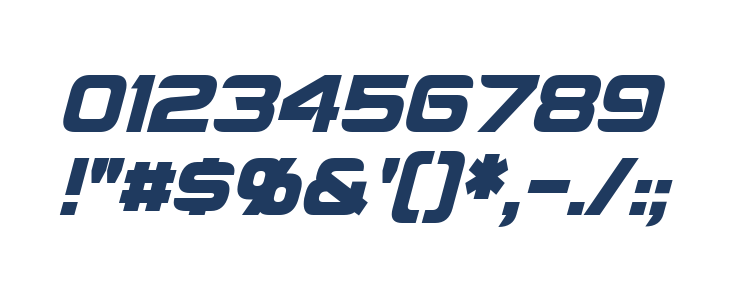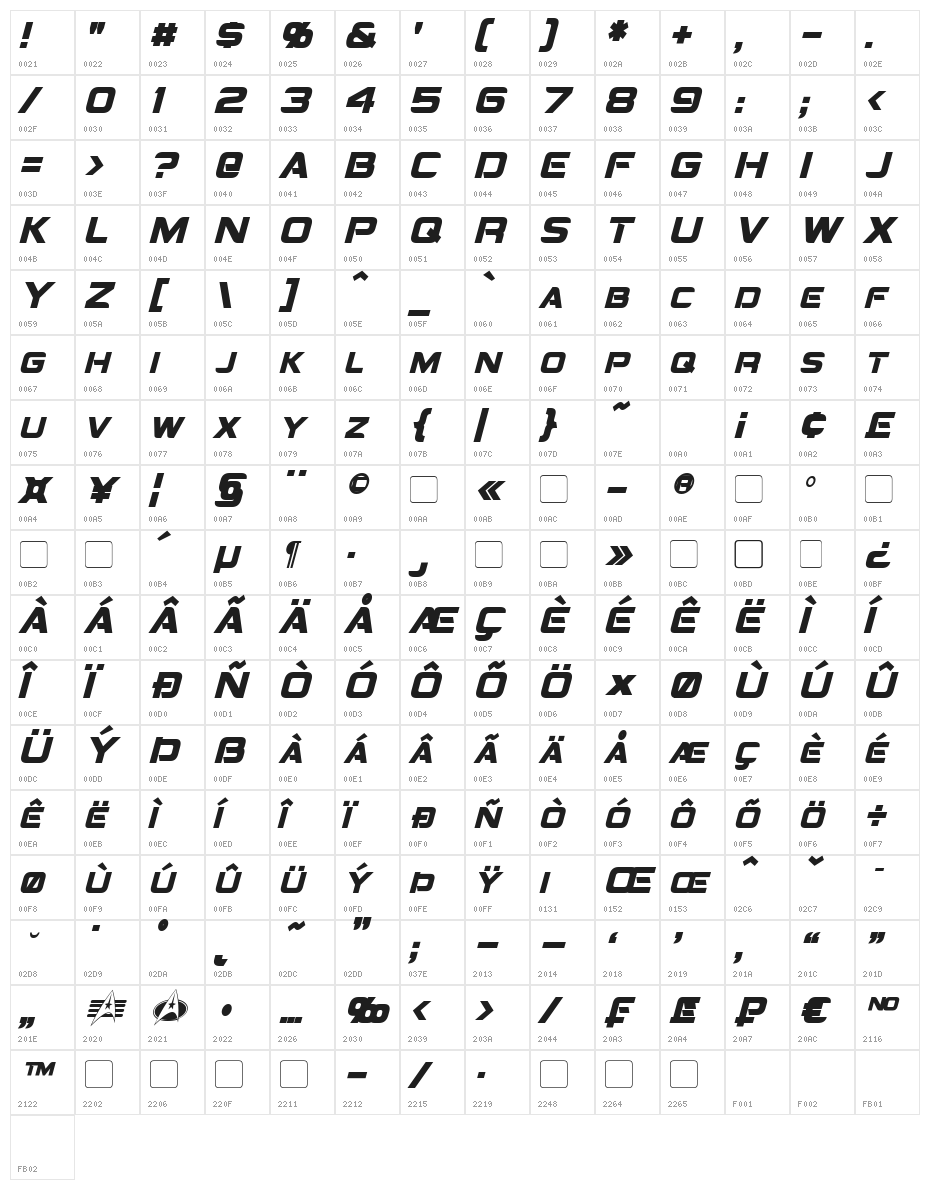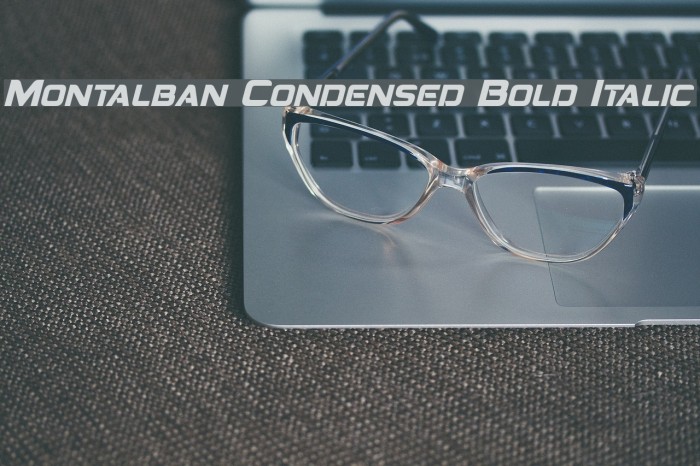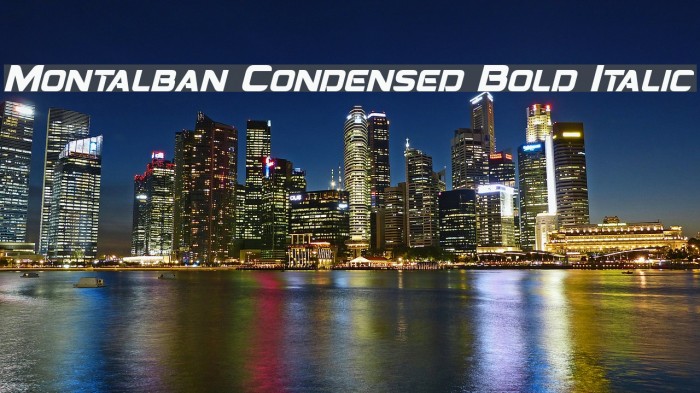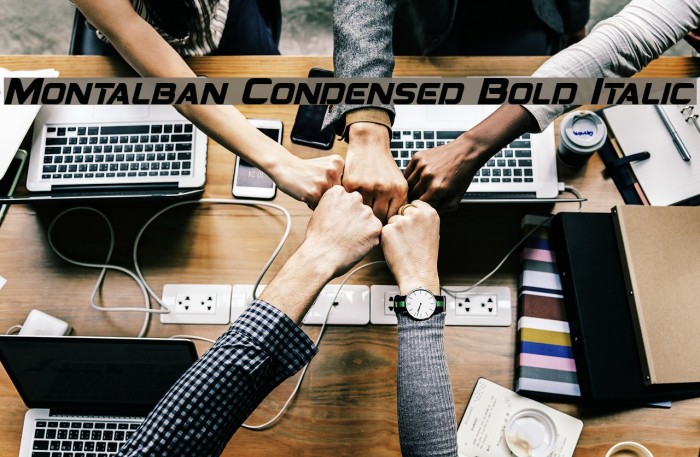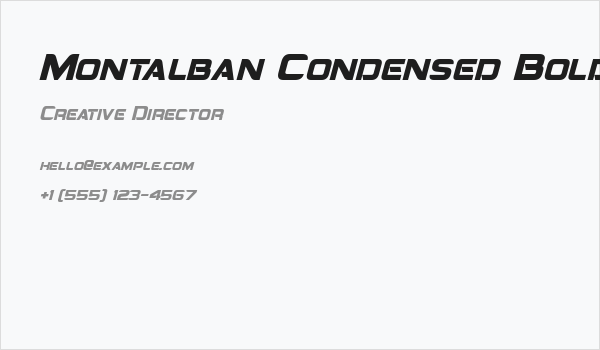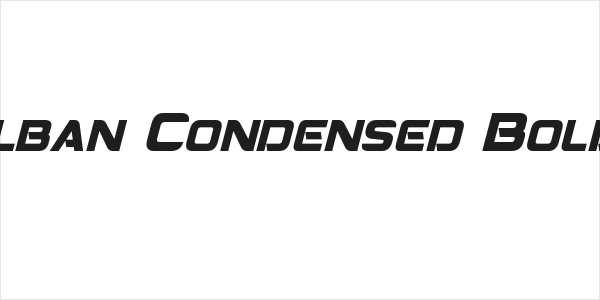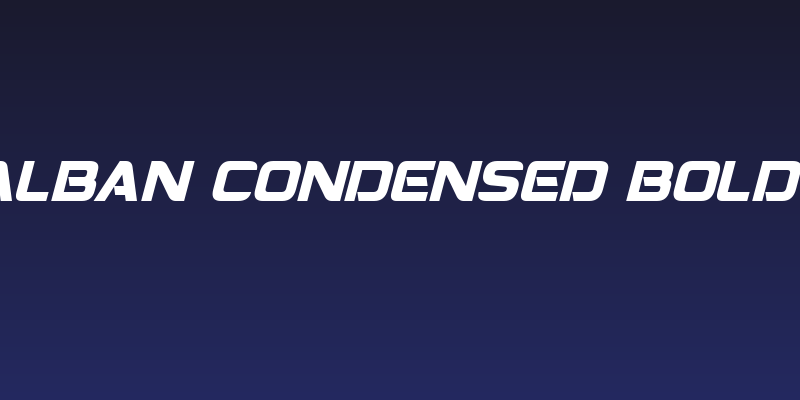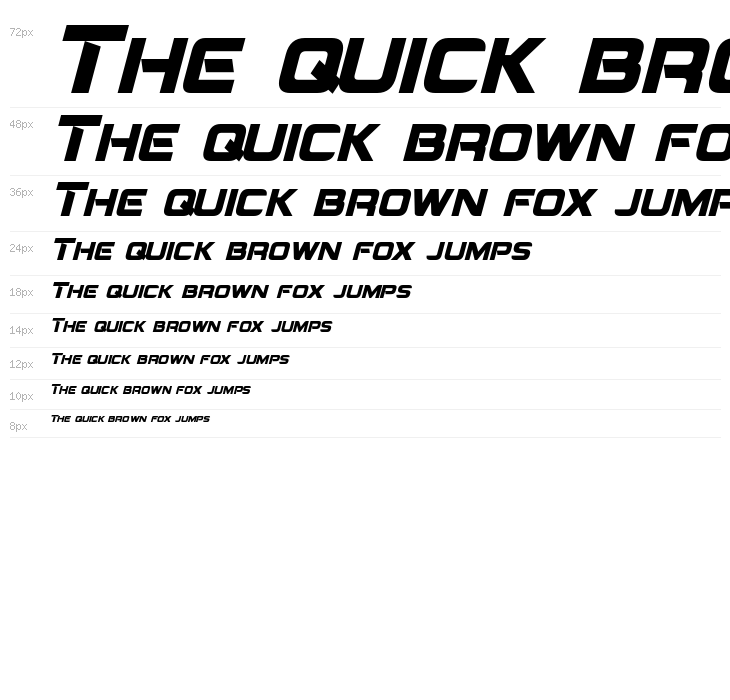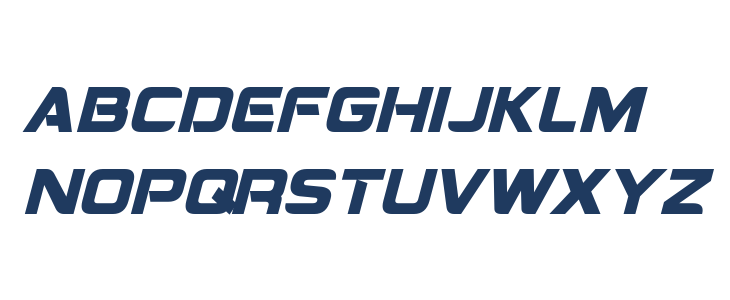
Montalban Condensed Bold Italic Font
Montalban Condensed Bold Italic Description
This font features a bold and italicized style with a condensed width, giving it a strong and dynamic appearance. The characters are slanted, adding a sense of motion and urgency. The bold weight ensures that the text stands out, making it suitable for attention-grabbing headlines or impactful statements. The condensed nature allows for more text to fit in a smaller space without sacrificing readability. The overall design is modern and sleek, with a slight futuristic edge, making it versatile for various design projects.